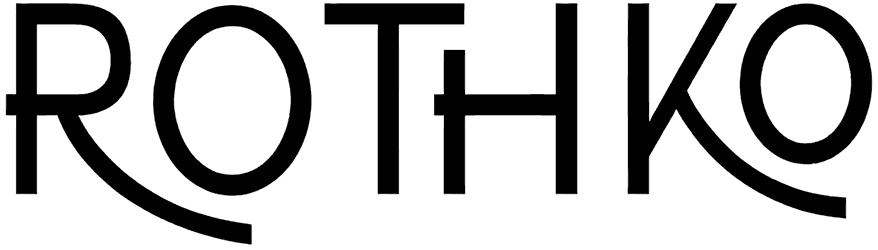
Rothko Font
This time we have a suggestion for you that can decorate your words with a classic and modest style. As a sans serif font, Rothko provides you a chance to have words with a face that never gets old in three weights. For your intended projects from formal to informal ones like business presentations, logos, flyers, and suchlike, this all-purpose font is a proper design.